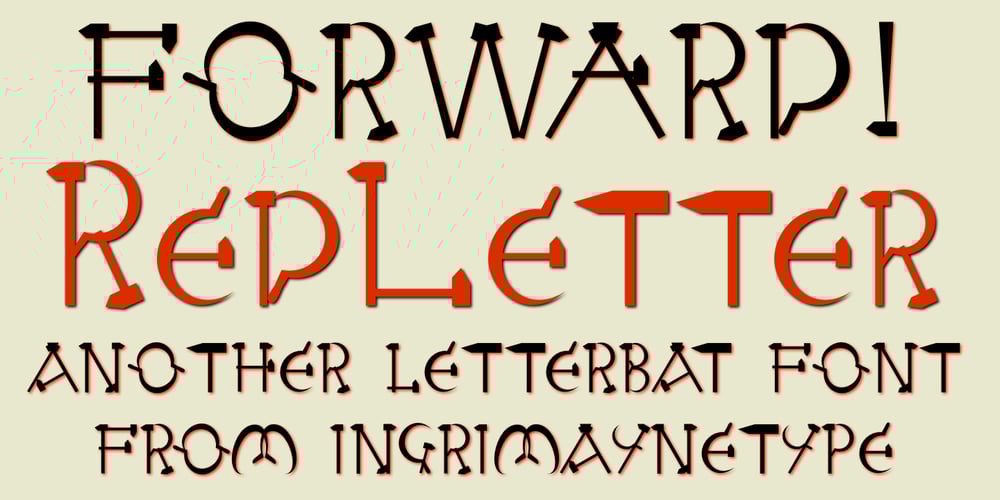
Red Letter Font Family was designed by Robert Schenk and published by Ingrimayne Type. Red Letter contains 1 styles and family package options. In late 1988 or early 1989 I noticed that the circular form of the sickle and the linear form of the hammer could be used to form all the letters of the alphabet. The result of that realization was RedLetter, a novelty or letterbat font. It is caps-only with the lower-case letters containing smaller versions of upper-case letters.